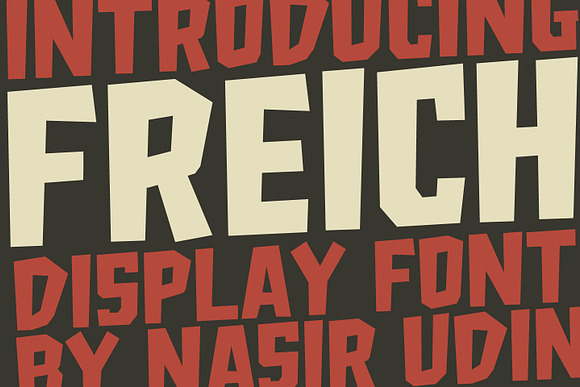
Freich Font
Freich Font is perfect for contemporary brand identities, modern editorial layouts, creative agency branding, digital platform interfaces, progressive marketing campaigns, innovative product packaging, tech startup presentations, and forward-thinking corporate communications.
What makes Freich Font exciting is its distinctively modern character that embodies contemporary design sensibilities through clean, confident letterforms that speak to today's digital-first audiences. The font features carefully balanced proportions with subtle innovative details that create visual interest without sacrificing readability or professional credibility. Its fresh approach to typography makes it perfect for brands that want to communicate innovation, forward-thinking, and contemporary relevance while maintaining the sophistication necessary for professional business applications and modern digital experiences.
Freich Font family includes various contemporary weights such as Light, Regular, Medium, and Bold variations, often featuring modern stylistic alternates and progressive decorative elements. The family may include tech-inspired symbols, contemporary ornaments, and innovative ligatures that enhance the font's modern aesthetic, providing designers with comprehensive options for creating cutting-edge brand identities that resonate with contemporary audiences and digital-native consumers.